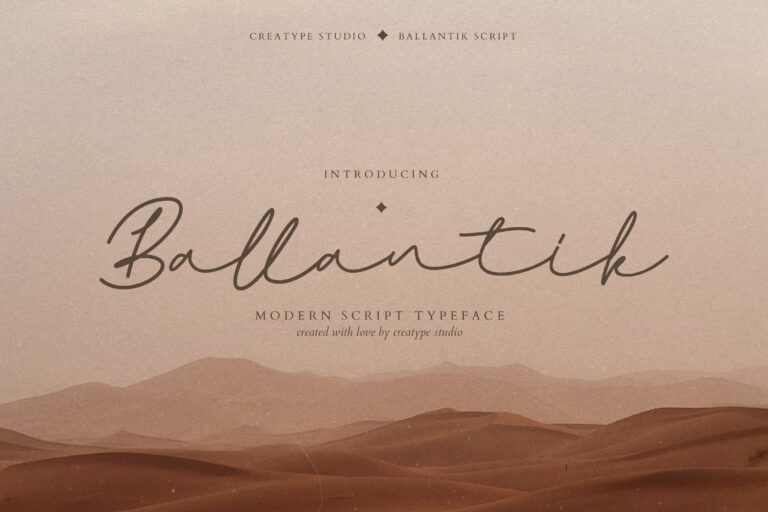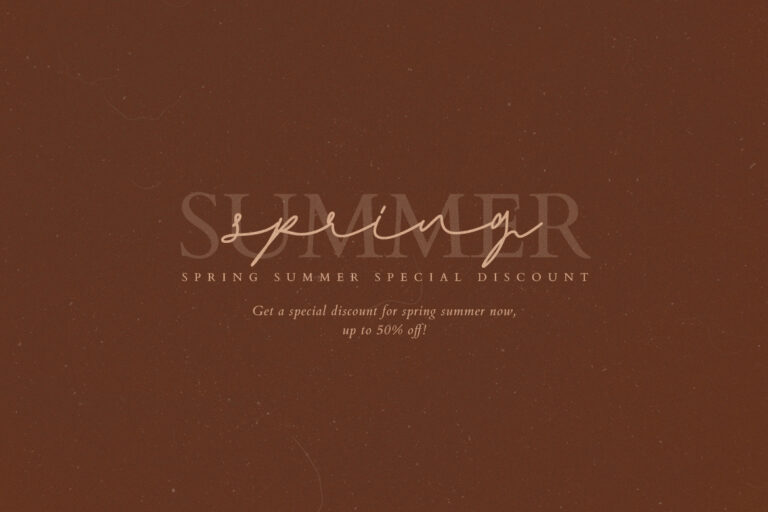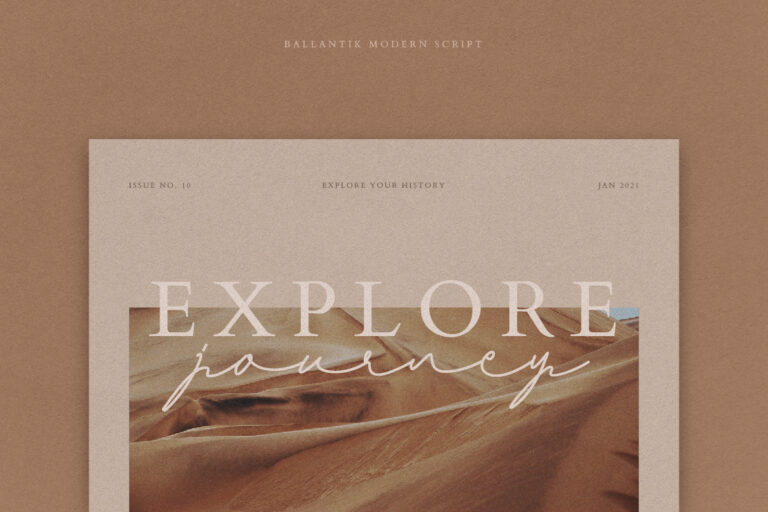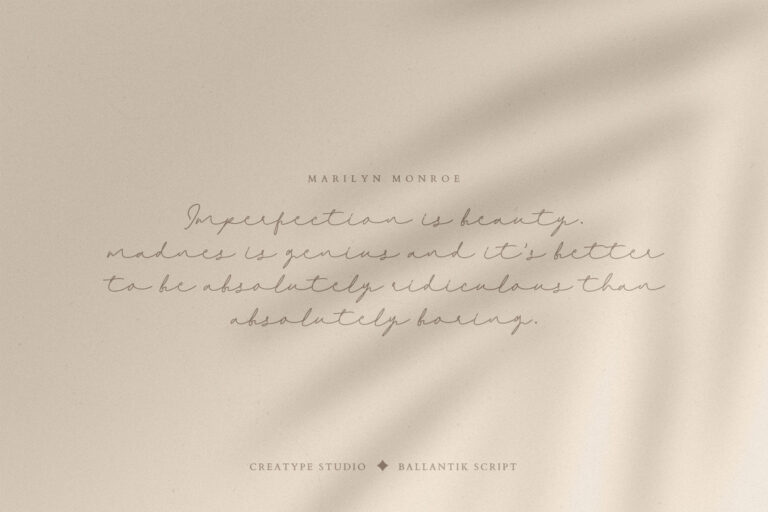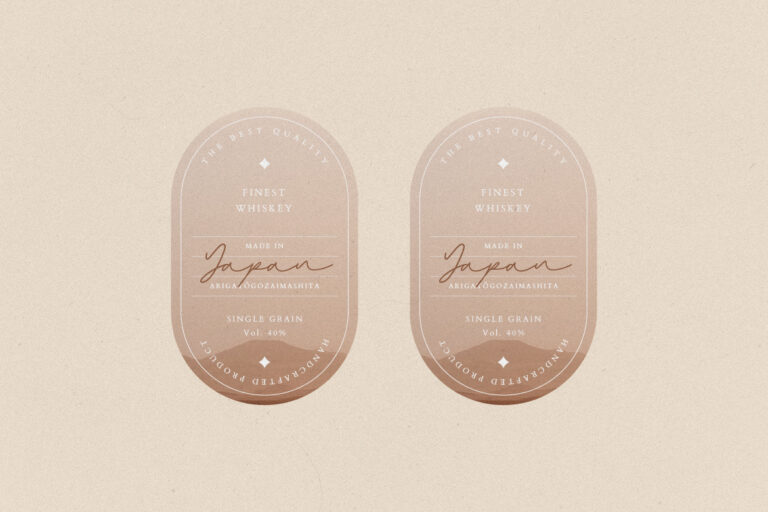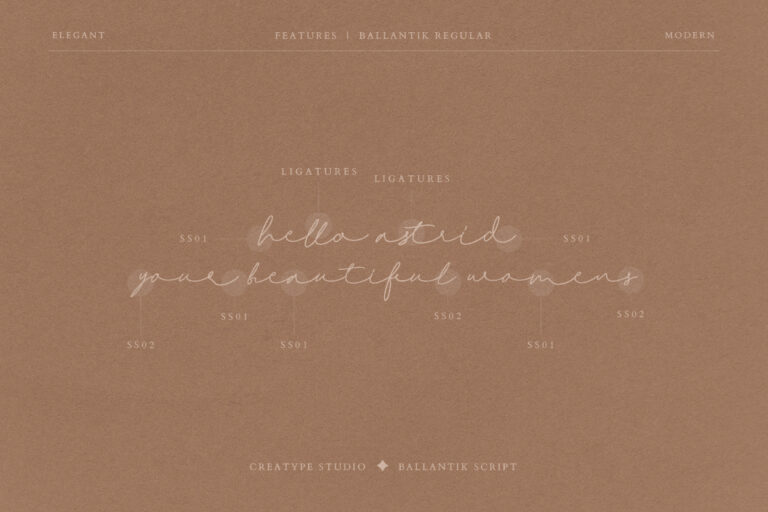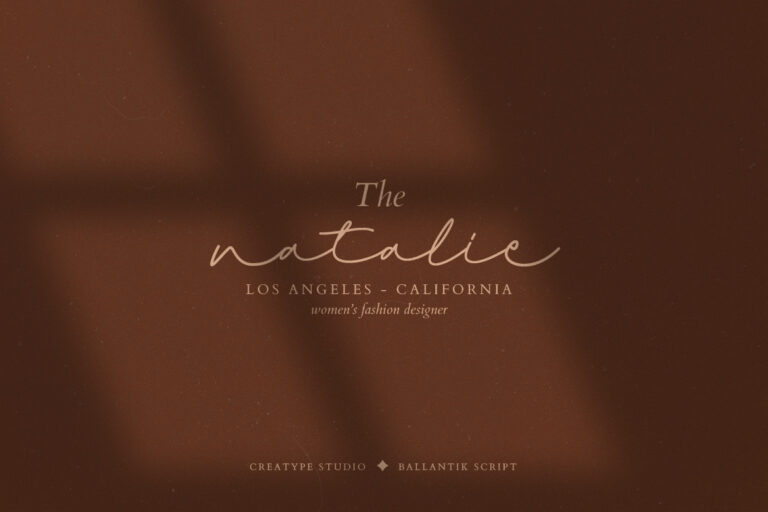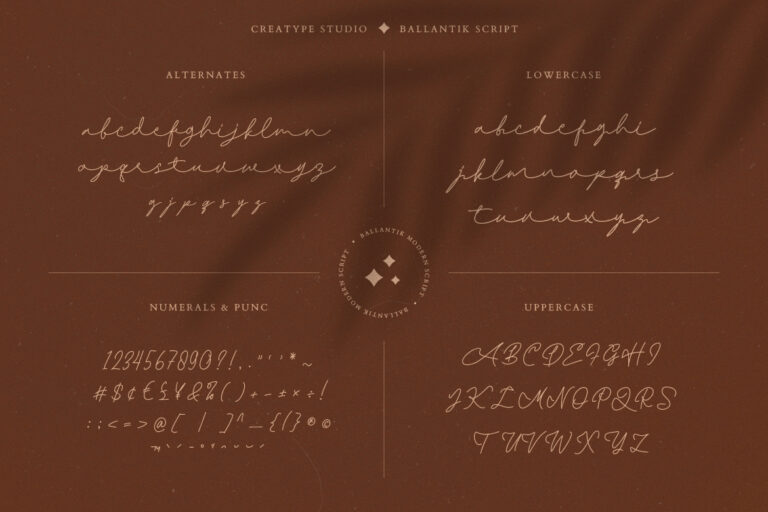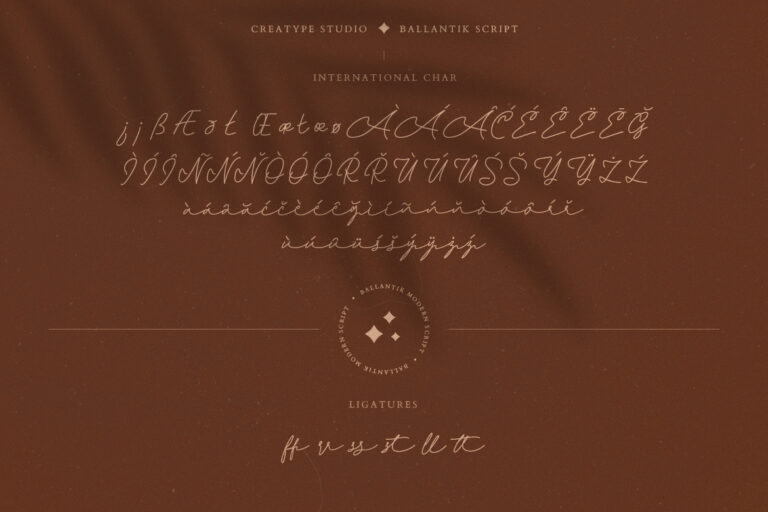
Ballantik is a modern monoline script typeface that looks so elegant, stylish and natural. Ballantik is made with love, it can be seen from the lines of the hand which look so natural and elegant.
Ballantik Modern Monoline Script is perfect for branding projects, logo, wedding designs, social media posts, advertisements, product packaging, product designs, label, photography, watermark, invitation, stationery and any projects that need handwriting taste.
Ballantik Modern Monoline Script